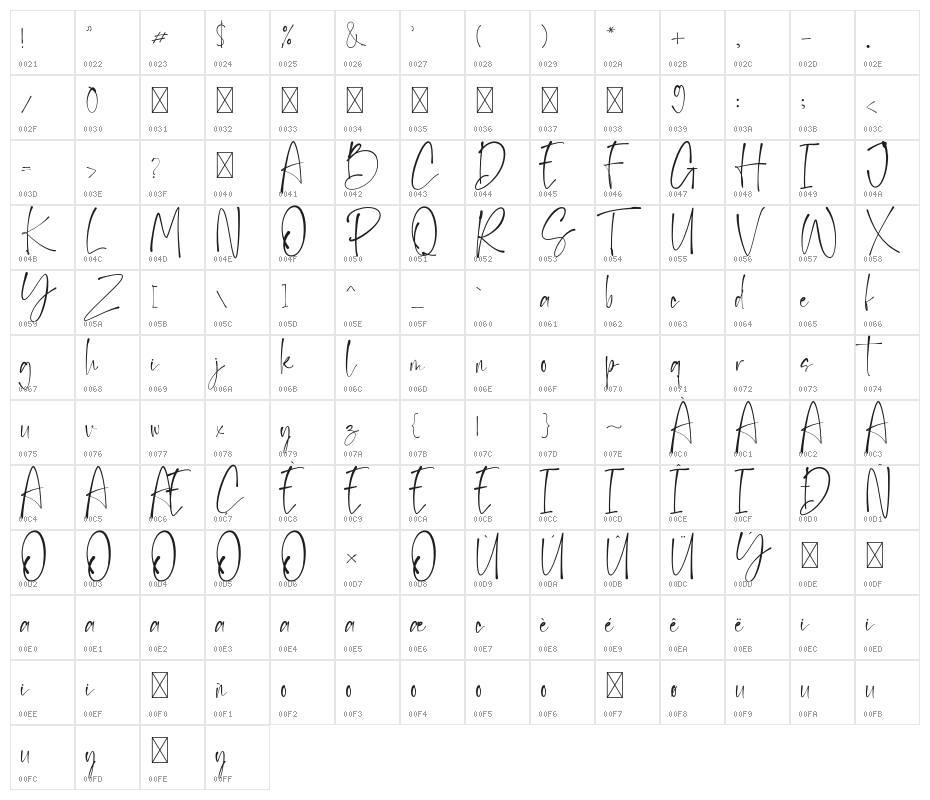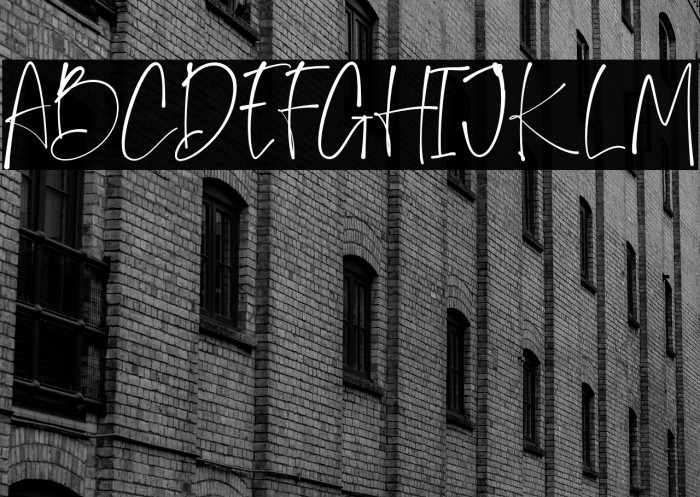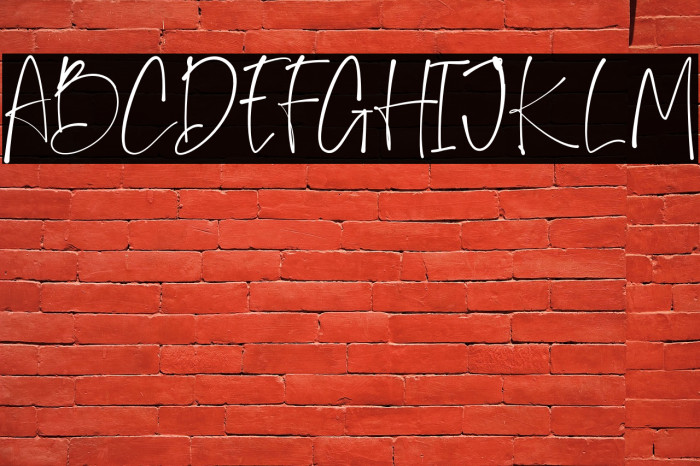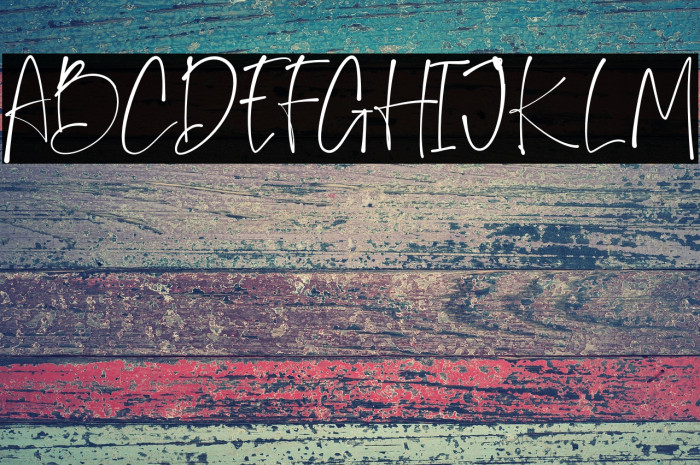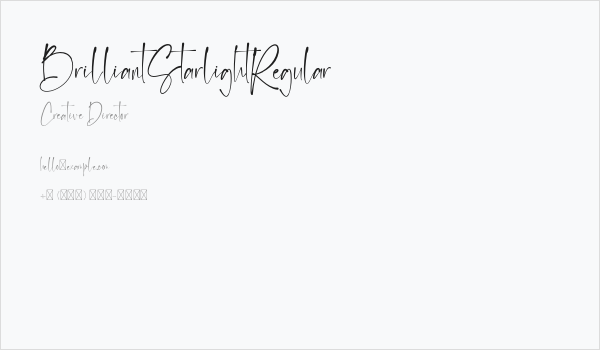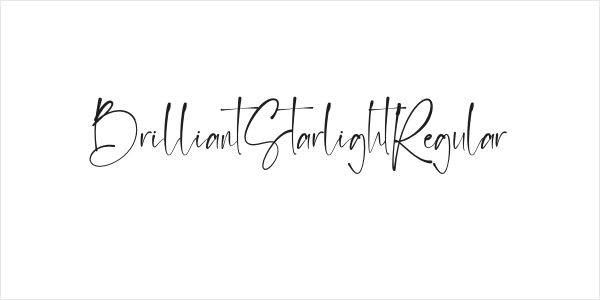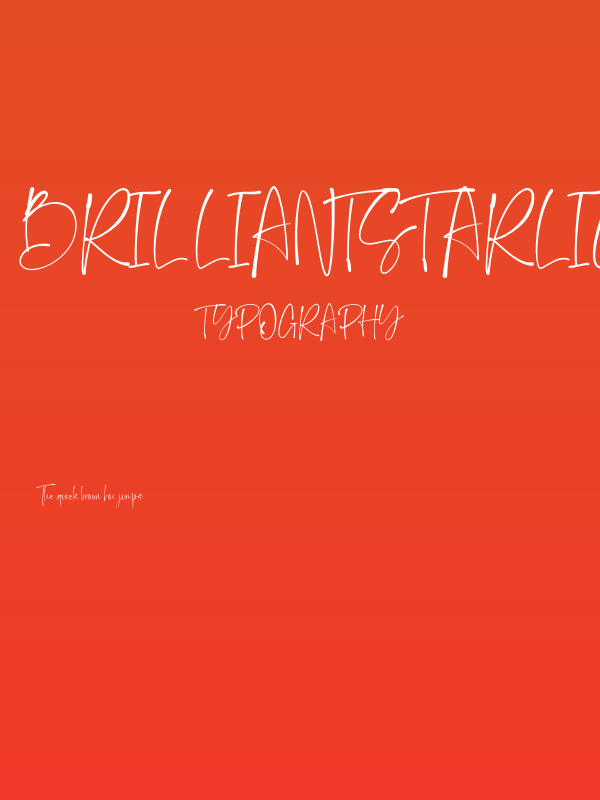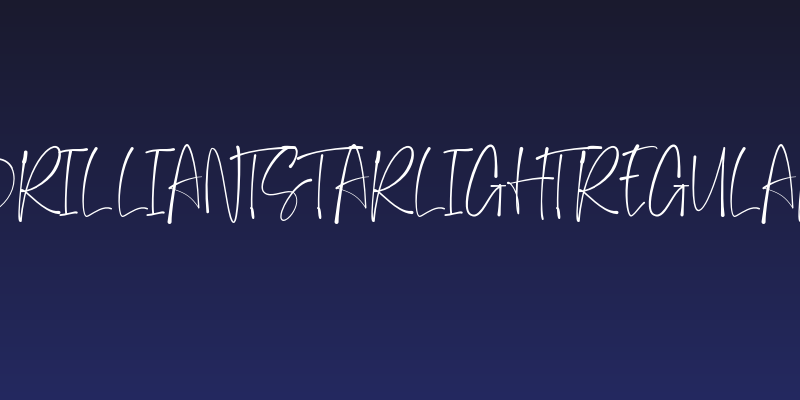
BrilliantStarlightRegular Font
BrilliantStarlightRegular Description
This font features a whimsical and artistic handwritten style, characterized by its fluid and dynamic strokes. The uppercase letters are tall and slender, with a playful, slightly irregular form that adds a sense of spontaneity. The lowercase letters maintain a consistent flow, with some characters extending below the baseline, enhancing its casual and free-spirited appearance. The numbers are uniquely styled, complementing the overall aesthetic. Special characters are creatively integrated, maintaining the font's lively and expressive nature. This font exudes a sense of creativity and individuality, making it ideal for projects that require a personal touch.
Use CaseLogos, Headlines, Artistic projects
Proposed ProjectsIdeal for creative projects such as invitations, greeting cards, personal branding, and artistic posters.